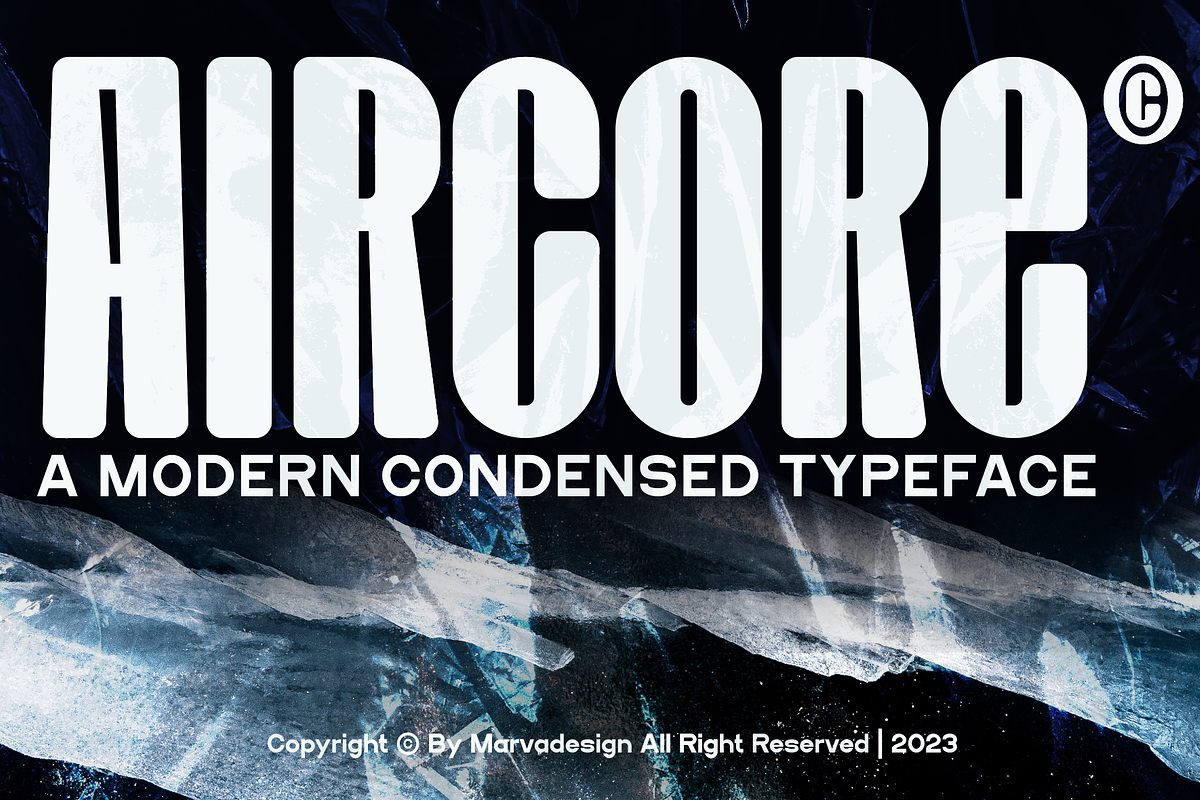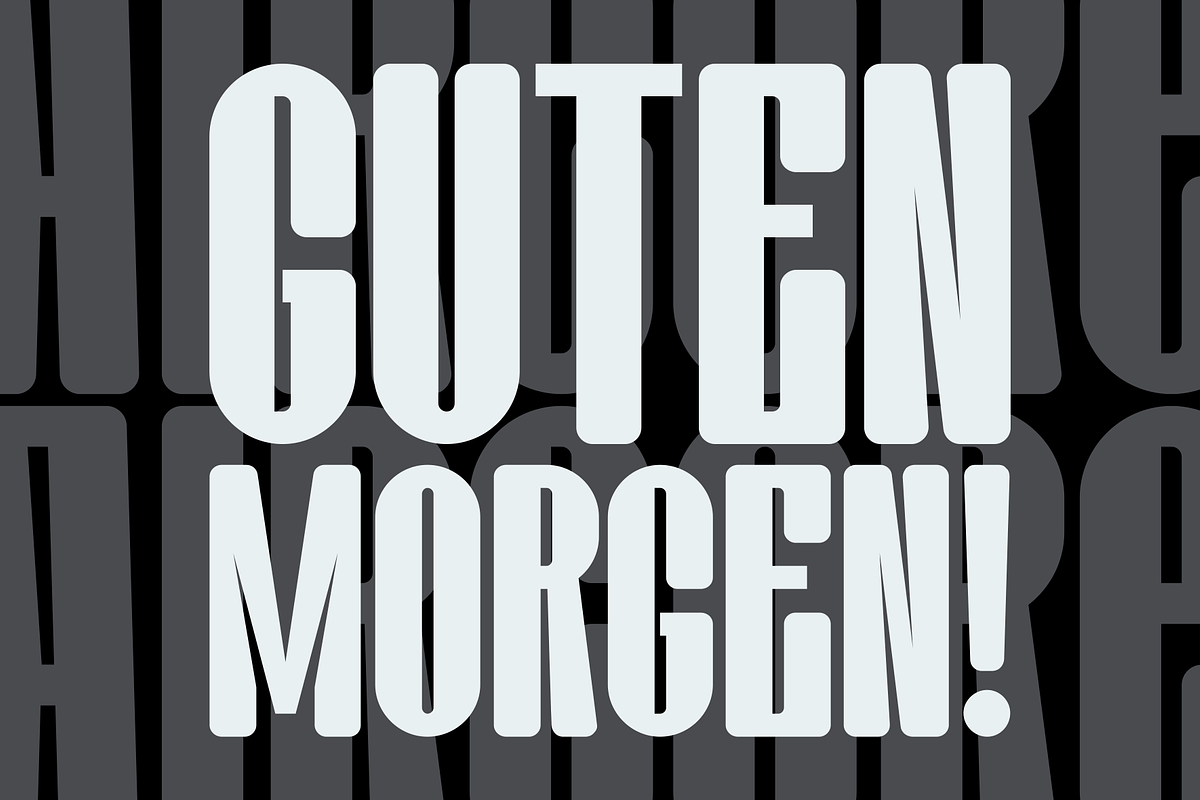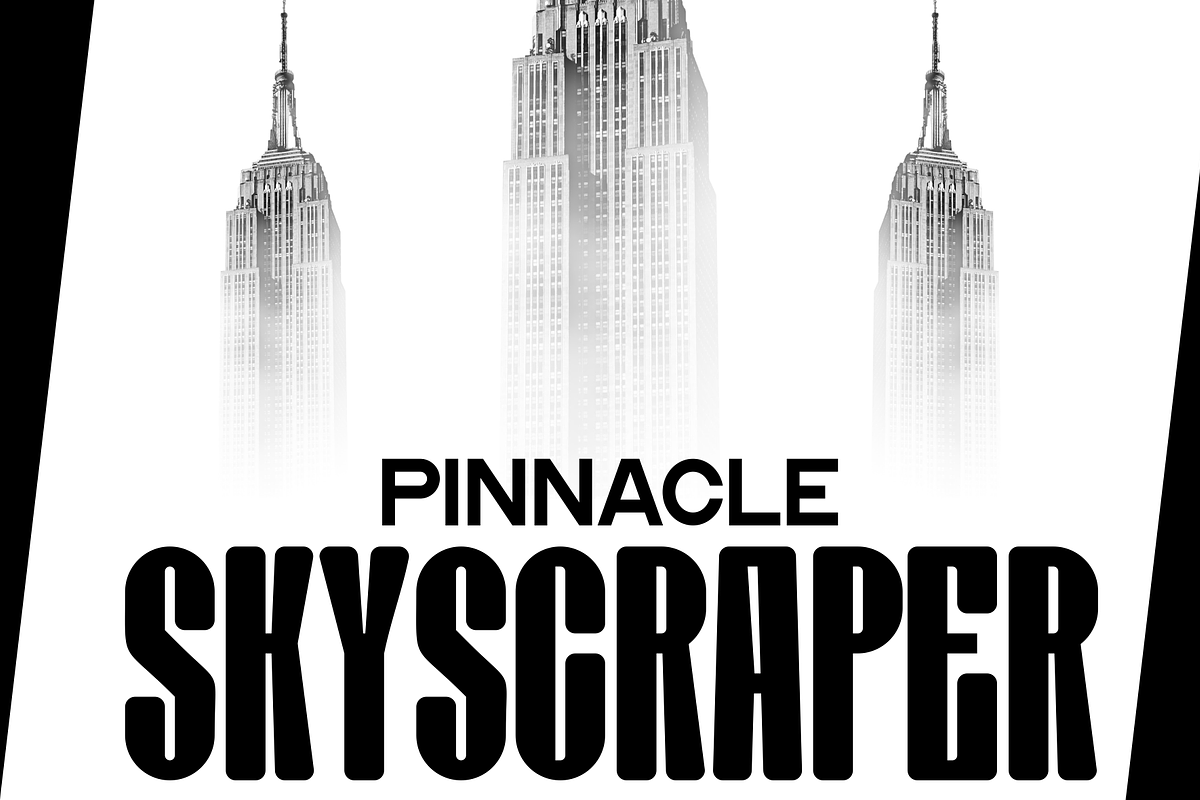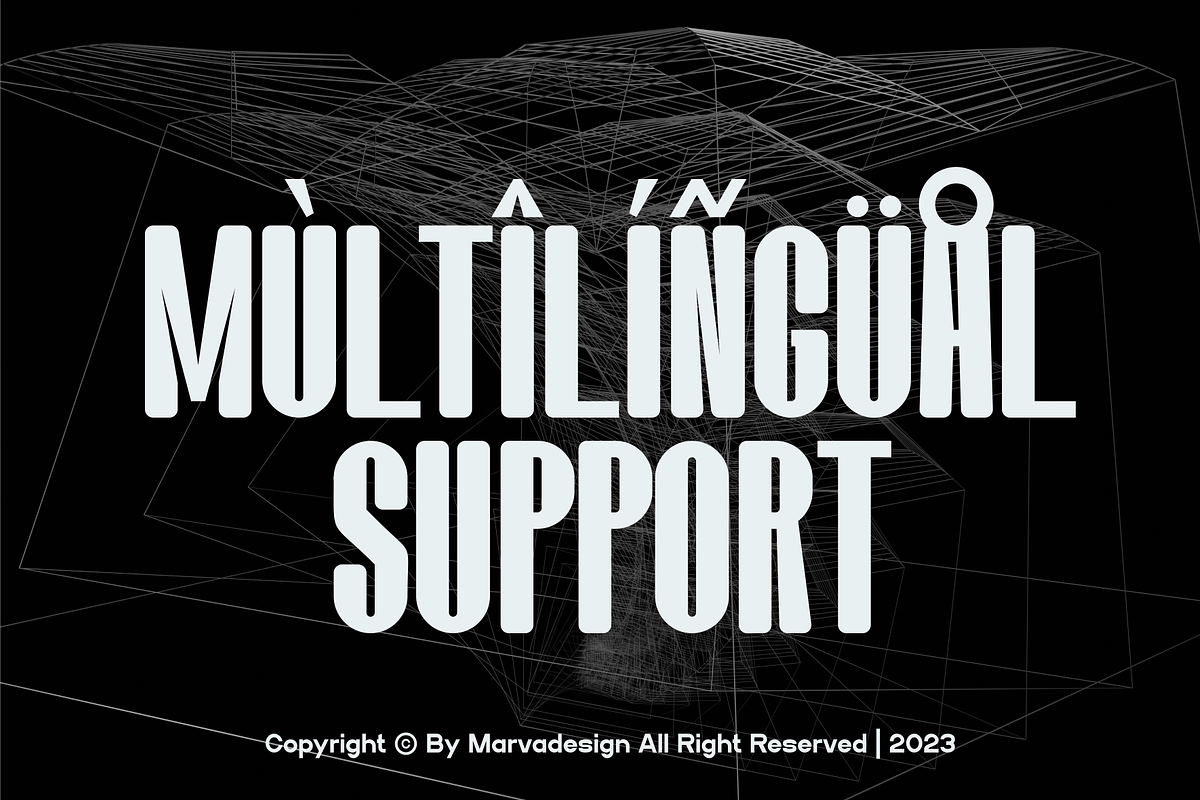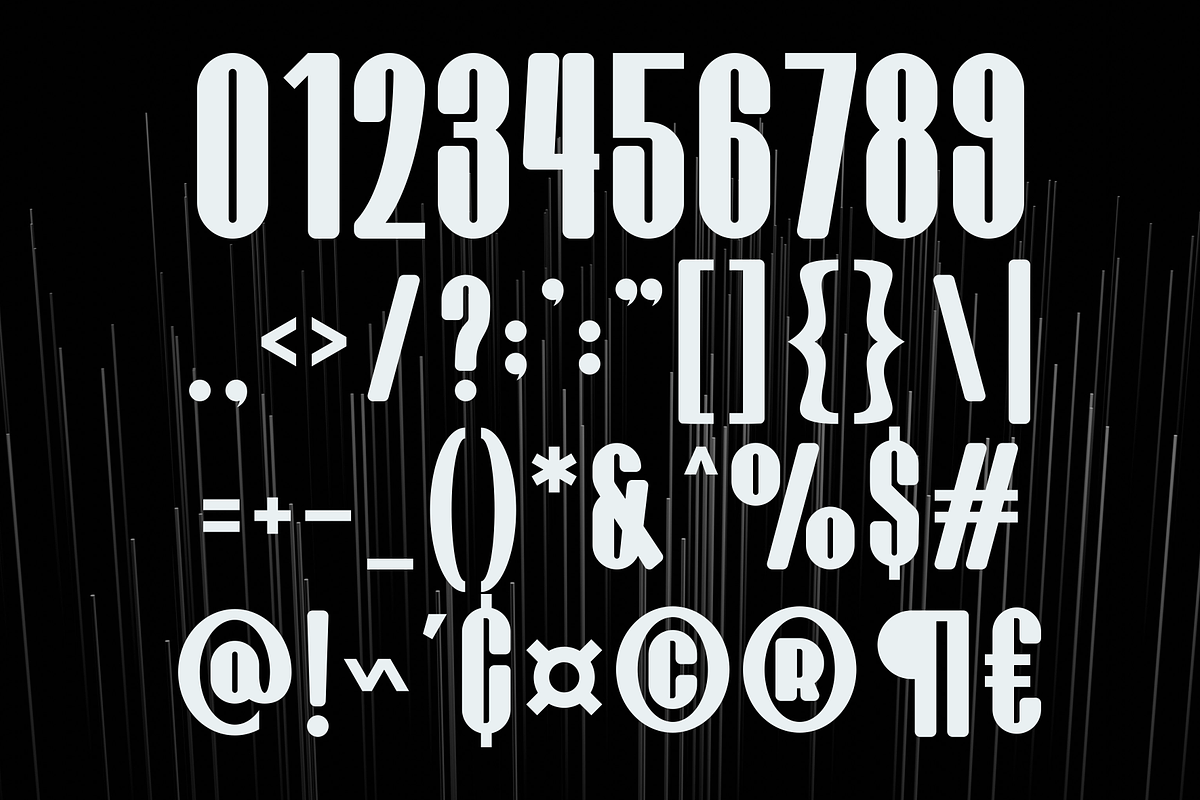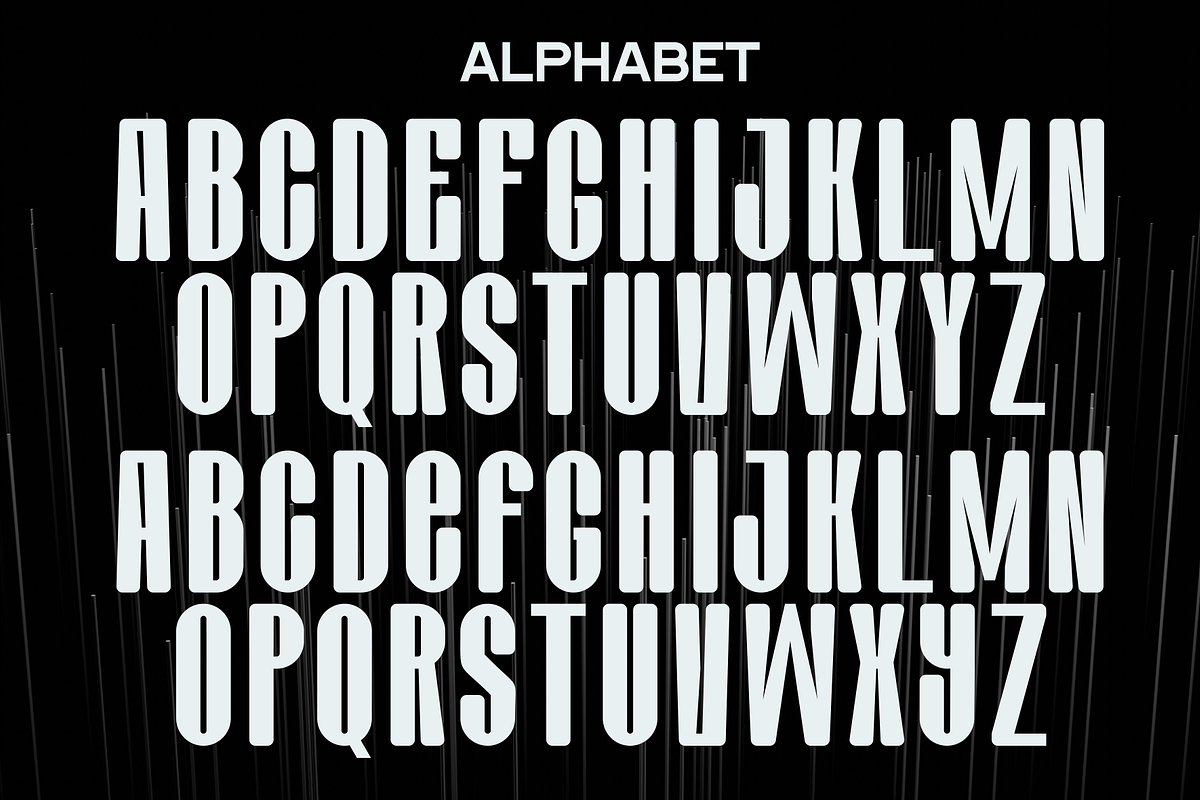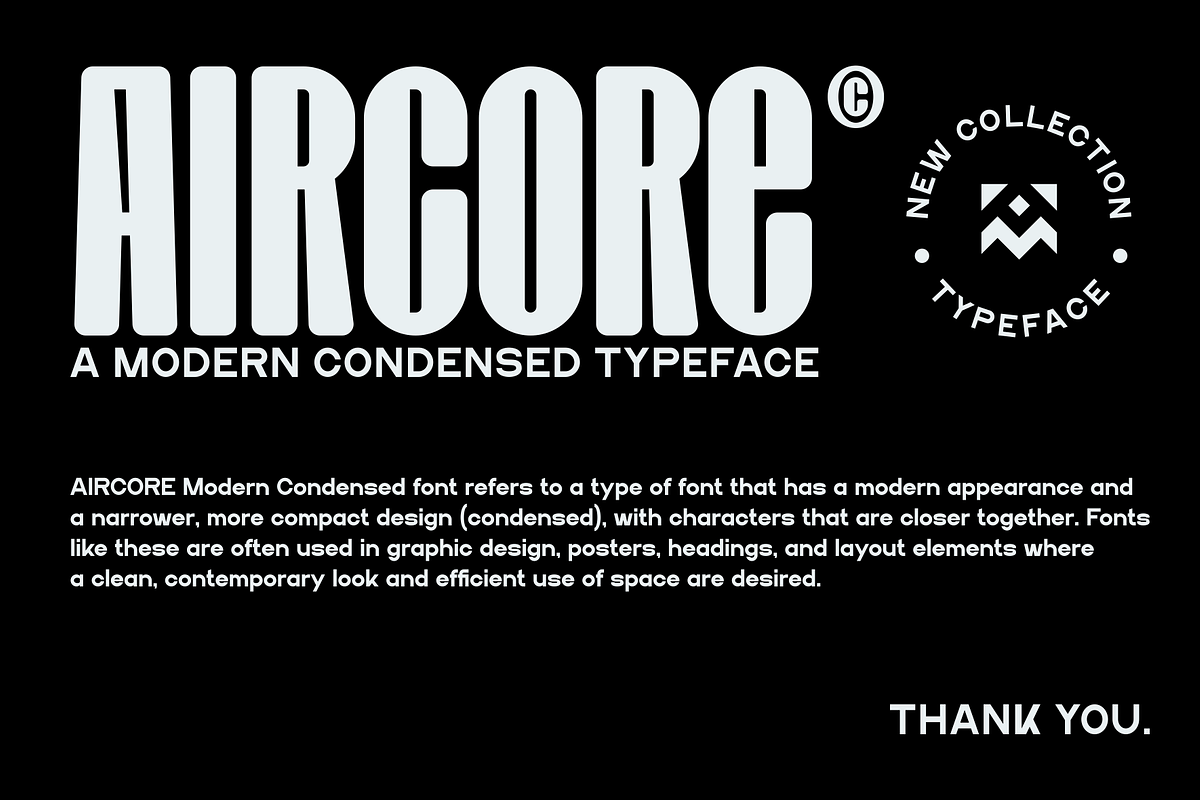
Aircore - A Modern Condensed Sans
Introducing our new product Aircore Font - Modern Font is a bold and authentic display font. The font is suitable for any branding project like logo, Template Design, Product and many more. outstanding in a wide range of contexts.